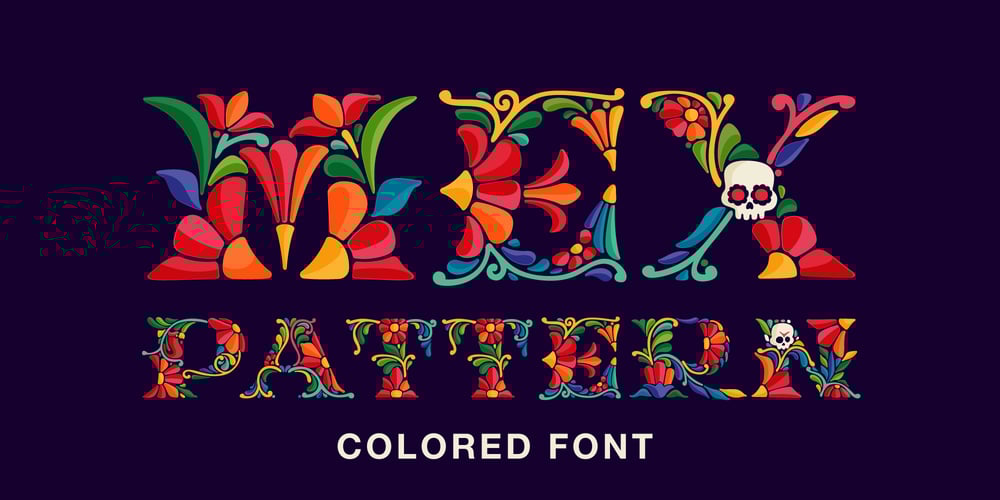
Mexican Pattern
Mexican Pattern font
Mexican Pattern Font Family was designed by Roman Korolev and published by Kaer. Mexican Pattern contains 2 styles and family package options. Mexican Pattern is my vision of classic Mexican style with colorful and ornate pattern. Mexican patterns appeared as a result of the fusion of two cultures. Aztec and Mayan heritage mingled with Spanish traditions in bright colors.You can use color fonts in PS CC 2017+, AI CC 2018+, ID CC 2019+, macOS 10.14 Mojave+ Please note that the Canva & Corel & Affinity doesn’t support color fonts!Please feel free to request any help you need: kaer.pro@gmail.comBest, Roman.